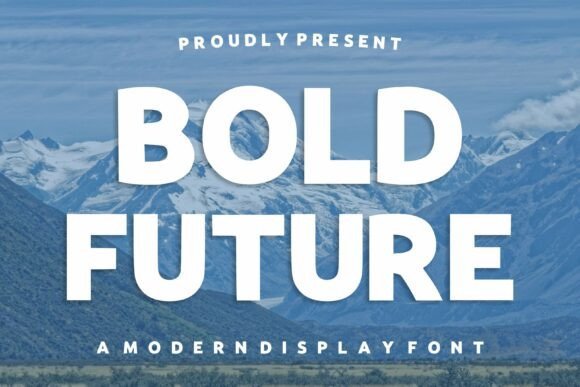
Unlock the Power of Bold Future Font
As creatives, we’ve all been there – staring at a blank page, trying to conjure up the perfect visual identity for a project. The moment of inspiration hits, and suddenly the words start flowing, and the design begins to take shape. But what if that spark of creativity was fueled by the right font? Enter the Bold Future Font, a powerful display font designed to make a lasting impression.
This modern font boasts clean lines, a geometric structure, and a bold weight that demands attention. With its futuristic and minimal aesthetic, it’s the perfect choice for designers looking to convey strength, innovation, and clarity in their work. Whether you’re crafting headlines, posters, or branding materials, the Bold Future Font is a valuable addition to your design toolkit, offering a solid and confident appearance that’s sure to leave a lasting impact.
Bold Future Font Key Features
- Font Family: Bold Future Font is a sans-serif font family designed for modern and futuristic applications.
- Character Set: Supports a wide range of languages, including Latin, Cyrillic, and Greek alphabets, with over 1,000 glyphs and 150 languages supported.
- Unique Characteristics: Features a bold, geometric design with clean lines and a futuristic feel, making it ideal for tech, gaming, and science fiction applications.
- Font Weight and Style: Available in 7 font weights (Thin, Light, Regular, Medium, Bold, Heavy, Black) and 3 font styles (Regular, Italic, Bold Italic).
Designer Review: Bold Future Font
I recently had the chance to work with the Bold Future Font, and I’m excited to share my thoughts on this trendy typeface.
- Unique Personality: The Bold Future Font has a distinct, futuristic vibe that’s perfect for projects that need a bold statement.
- High Contrast: The font’s thick lines and geometric shapes create a high contrast effect that makes it easy to read, even at small sizes.
- Customization Options: The font family includes various weights and styles, allowing designers to tailor the look to suit their project’s needs.
- Limited Legibility at Small Sizes: While the font is readable at larger sizes, it can become difficult to decipher at very small sizes.
- Overuse Potential: The Bold Future Font’s unique style may be so striking that it overshadows other design elements, making the project feel too “on the nose”.
Overall, the Bold Future Font is a great choice for designers who want to make a statement with their typography. While it may not be suitable for every project, its unique personality and high contrast make it a valuable addition to any designer’s toolkit.
Bold Future Font is perfect for:
- Modern and futuristic designs
- Business and corporate materials
- Graphic design and visual identity projects
To get the most out of Bold Future Font, use it in combination with other modern and clean fonts. Experiment with different font sizes, colors, and styles to create a unique and eye-catching design.